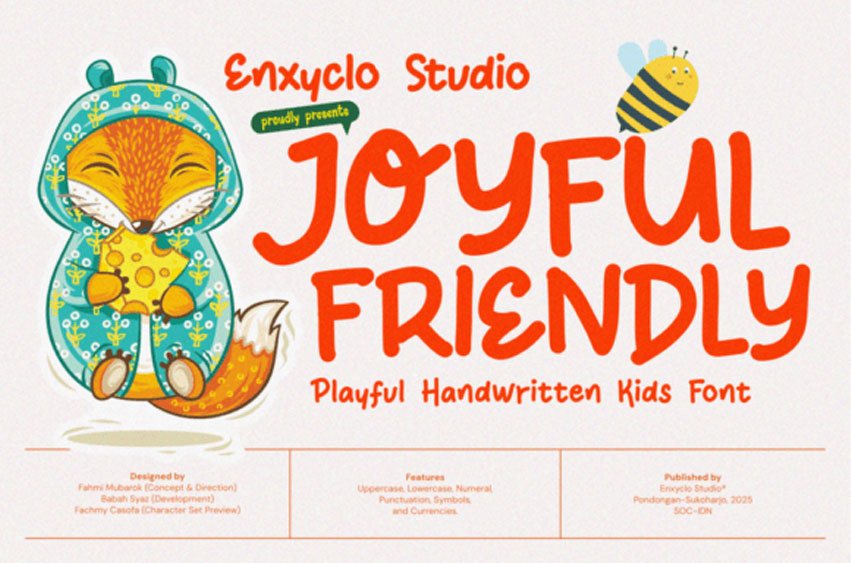
Joyful Friendly Font is a whimsical handwritten font inspired by the charm of storybook adventures, fairytales, and children’s imagination. Its soft, playful strokes capture the innocence and wonder of a hand-drawn style, perfect for bringing warmth and personality to your children’s stories and picture books.
Whether you’re crafting a children’s book cover, designing an illustrated fairytale, or creating adventure-inspired posters, this font adds a touch of storytelling magic to every design. Let your creativity wander through enchanted forests, brave adventures, and dreamy bedtime stories, all told through the friendly, handcrafted charm of Joyful Friendly.